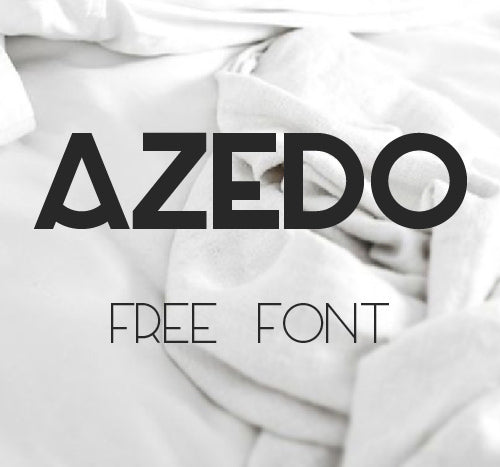
Free Azedo Font
Download and enjoy this free azedo font. Cool typeface to showcase your designs in a modern way. This is a downloadable free typeface file brought to you by The Hungry JPEG. Easily amaze your audience with this cool font and make your graphic designs pop up from the crowd.